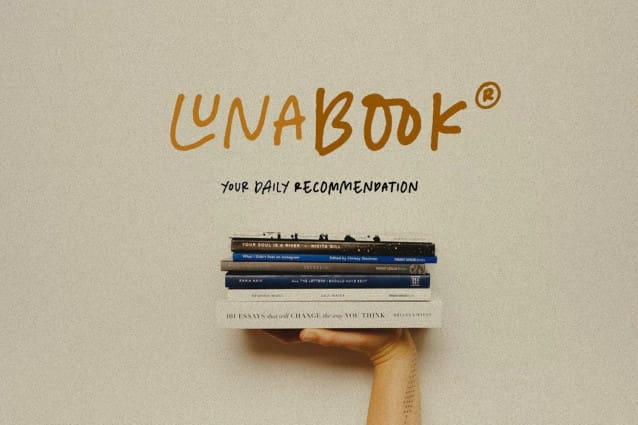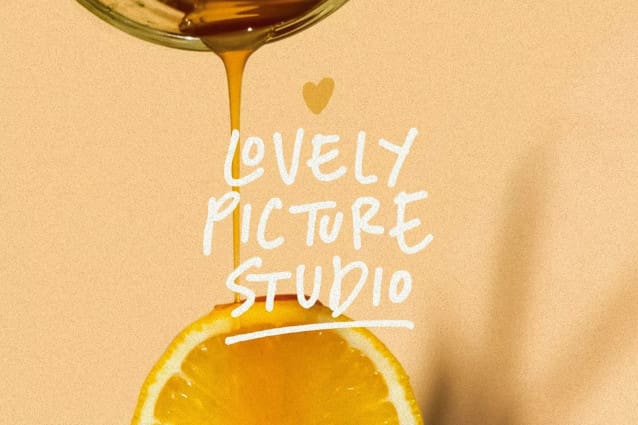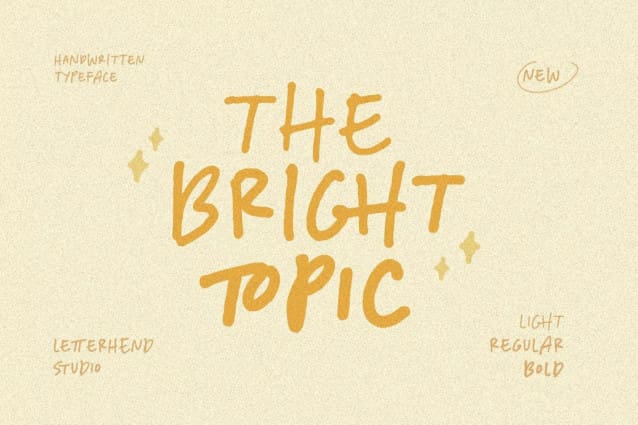
The Bright Topic Font
The Bright Topic Font is a beautiful typeface based on manual hand writing. The natural flow with 3 styles weight make this font looks a real hand writing instead of typing a font. This type of font perfectly made to be applied especially in logo, and the other various formal forms such as invitations, labels, logos, magazines, books, greeting / wedding cards, packaging, fashion, make up, stationery, novels, labels or any type of advertising purpose.